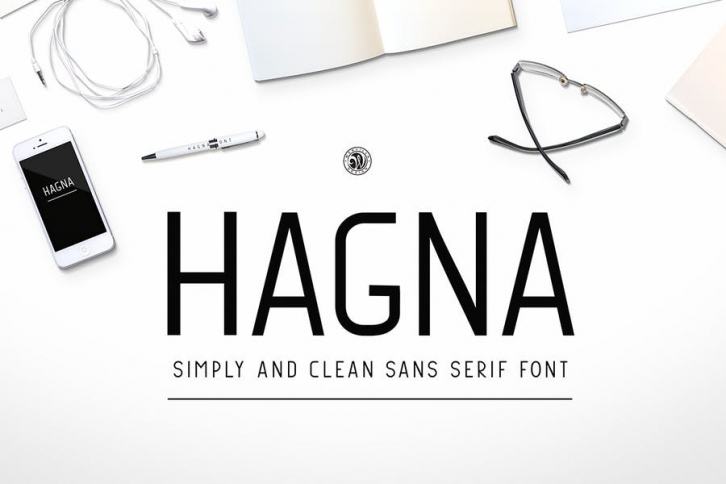
Hagna - all caps sans serif font. It’s clean and universal. Best for logos, branding or heading.
- Basic latin glyphs
- Uppercase letters
- Numbers & punctuation